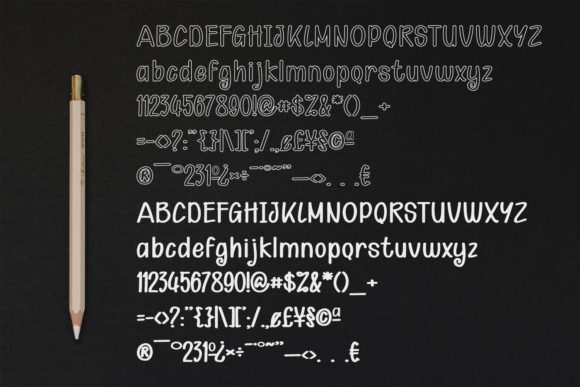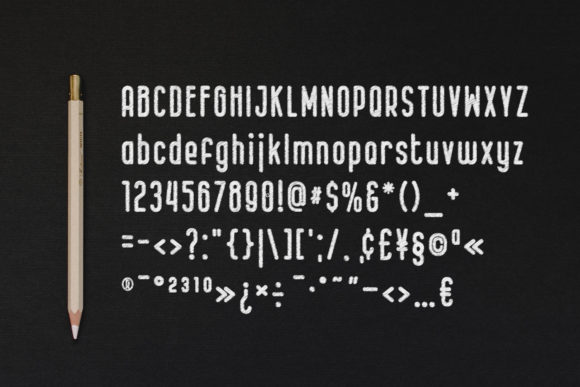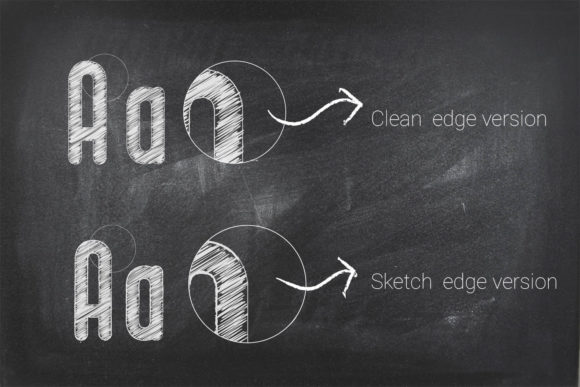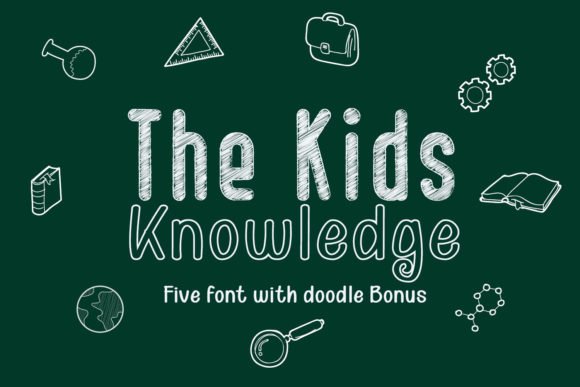
Introduction to Kids Knowledge Family Font
The Kids Knowledge is a striking family.
It includes 5 amazing styles which can be combined perfectly, giving you the opportunity to create multiple unique designs in an instant It was inspired by children’s science projects and will give a playful touch to your designs.